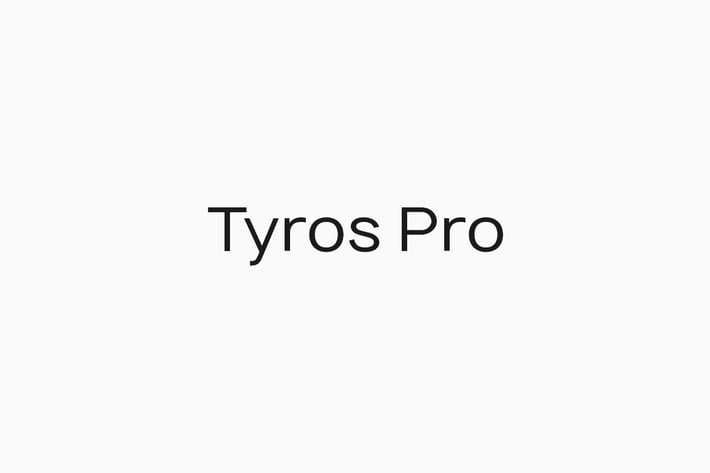
TYROS Pro - Modern Geometric Sans-Serif Typeface
TYROS Pro - An authentic geometric Sans-Serif typeface, a perfect choice for print, web, logo design, marketing graphics and branding. A traditional geometric design inspired from world's best typefaces. A perfect choice for any type of designs, logotypes, headlines, branding, marketing graphics, corporate identities, all web & print purposes.
This typeface comes with a total of 15 fonts included in the pack:
6 Weights (Light / Regular / Medium / SemiBold / Bold / Heavy)
6 Weights of Italic versions (Light / Regular / Medium / SemiBold / Bold / Heavy)
* 3 Weights of Outline versions (Regular / Medium / Bold)